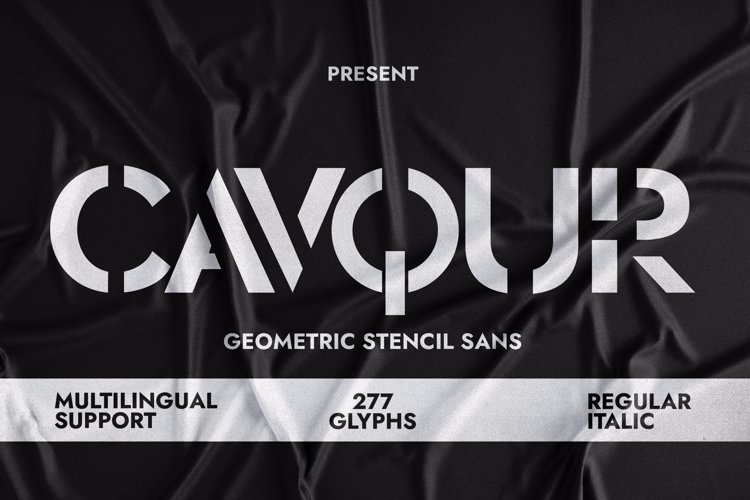
Cavquor Font
๐จ Font Name: Cavour by Minimalist Art Studio
๐จ Font Description: Cavour is a geometric stencil sans serif with minimalist precision and multilingual supportโideal for branding, editorial layouts, and futuristic design.
โ Complete Latin set + multilingual diacritics
โ Alternates, stylistic sets & ligatures
โ Numbers, small caps, and extended punctuation
โ Bonus italics and family styles